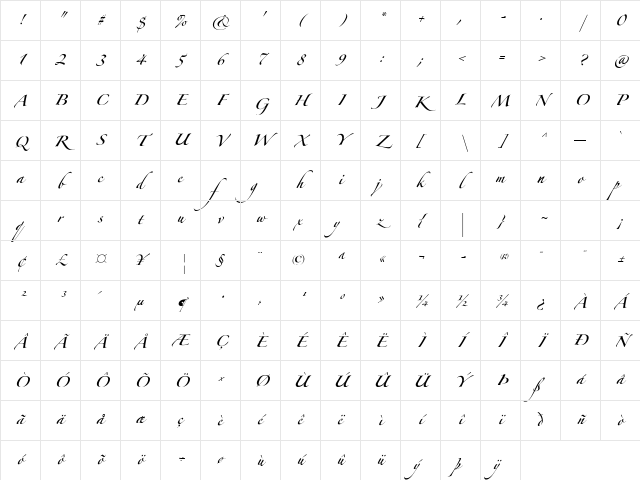
Complete Zapfino Forte LT Pro Regular glyph index. Displaying only characters natively supported by Zapfino Forte LT Pro Regular font.
Zapfino Forte LT Pro is a composed and adaptable typeface that performs quietly and consistently across a wide range of design contexts. Its slender proportions lend an understated elegance to any composition.
Who designed the Zapfino Forte LT Pro Regular font?